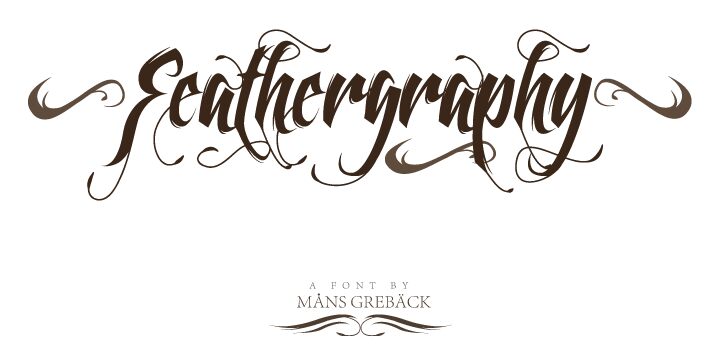
Feathergraphy Clean by Måns Grebäck is a free calligraphic script with tall, theatrical forms and sharply tapered strokes. Its letters swing between broad curves and needle-fine joins, producing a restless, cut-paper silhouette. Long flourishes often cross or tuck beneath neighboring forms.
A poster is its most convincing setting, especially for dance, fashion, or music events with a dramatic edge. The angular sweep can shape album packaging and event invitations, where the lettering feels closer to a custom signature than display type. For boutique branding, its pointed details and sweeping joins can turn a name into a recognizable mark.
Feathergraphy Clean